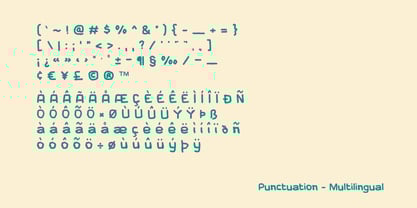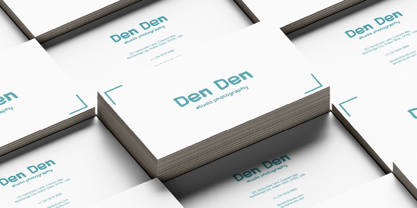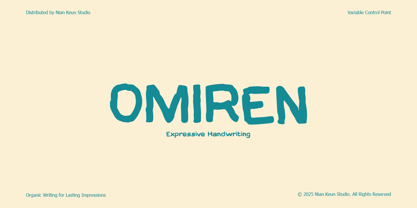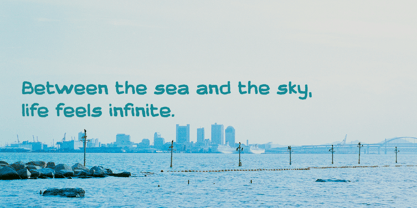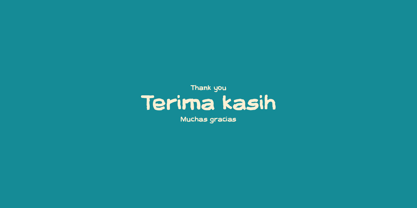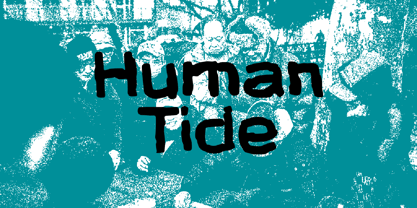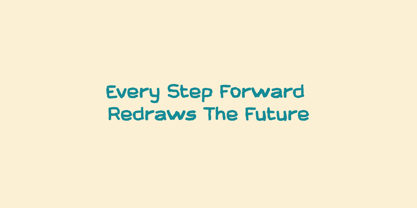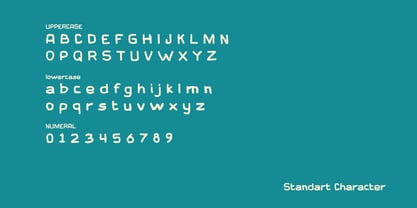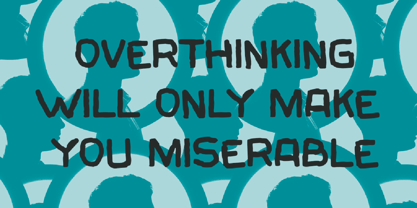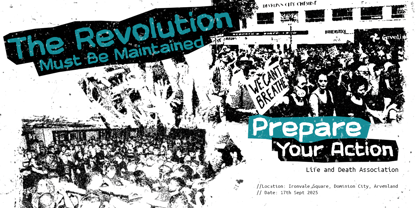
Omiren
by Nian Keun Studio
The Omiren Font Family was designed by Mugi Raharjo and published by Nian Keun Studio. Omiren contains 1 styles.
Omiren is an expressive handwritten typeface designed to bring a natural, human touch to your creative projects. With its irregular strokes and playful flow, Omire captures the essence of authentic handwriting—warm, approachable, and full of personality.
Built with a Variable Control Point system, Omiren allows flexibility in shaping proportions, making it highly adaptable for different design needs without losing its handcrafted spirit. Perfect for designers who want to inject life and authenticity into their work.
Font Features
- Hand-drawn, organic letterforms
- Playful yet balanced flow
- Excellent readability in display sizes
- Variable control point for flexible adjustments
- Unique personality for expressive designs
Perfect For
- Children’s book titles
- Creative branding
- Handmade product packaging
- Posters & playful headlines
- Social media graphics with personality